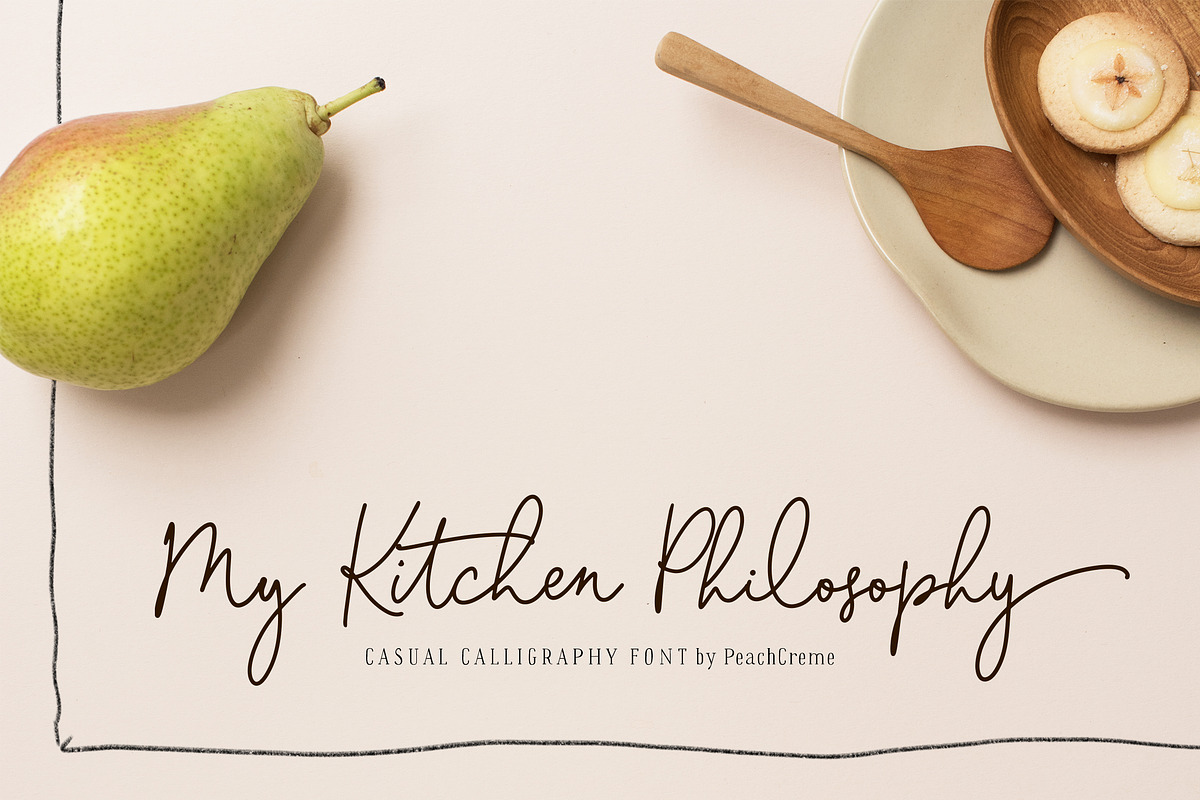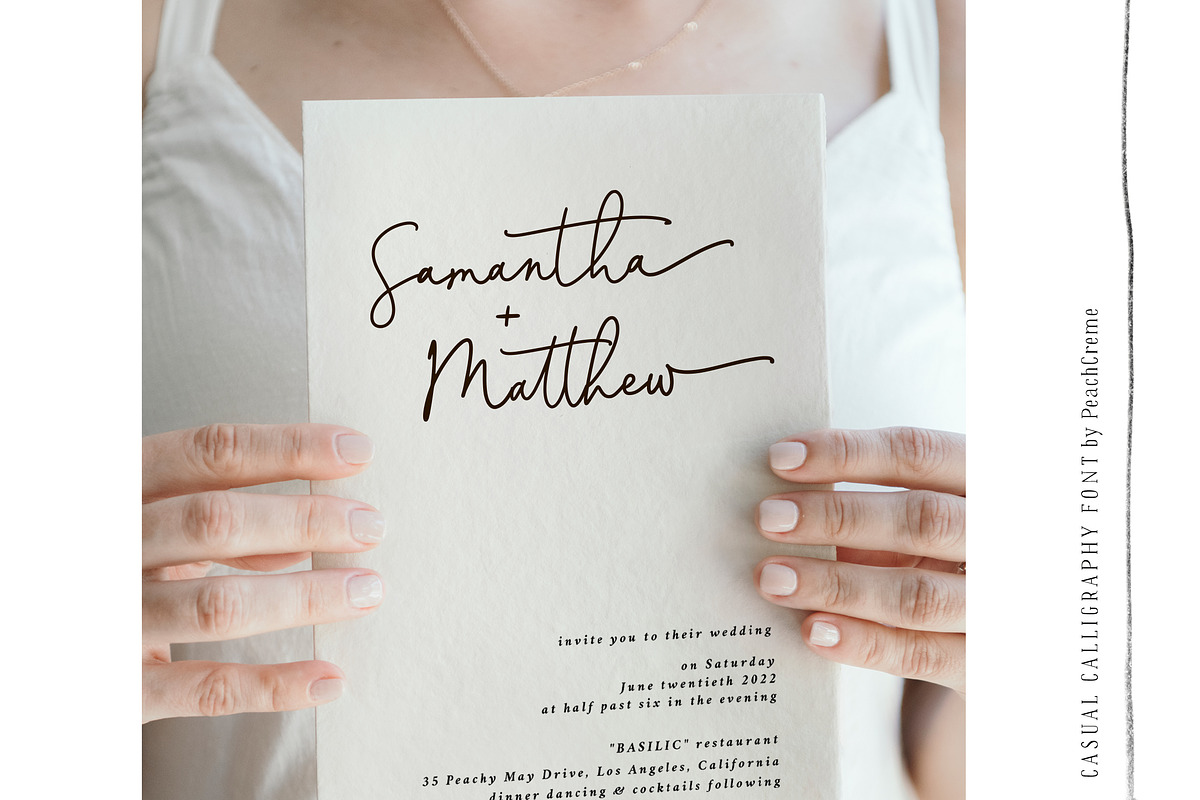
Lolita // Casual Chic Font
UPDATED WITH NEW LIGATURES
Lolita is a playful, yet chic, modern, casual font . It is perfect for branding, wedding invites and cards.
Lolita includes full set of lovely uppercase and lowercase letters, multilingual symbols, numerals, punctuation and lots of ligatures.Also it includes beginning andending lowercase swashes. The font has smooth texture, so would be perfect for all types of printing techniques+you can do embroidery, laser cut, gold foil etc.
Lolita // Casual Chic Font by PeachCreme fits naturally into Branding, posters, packaging, typography.